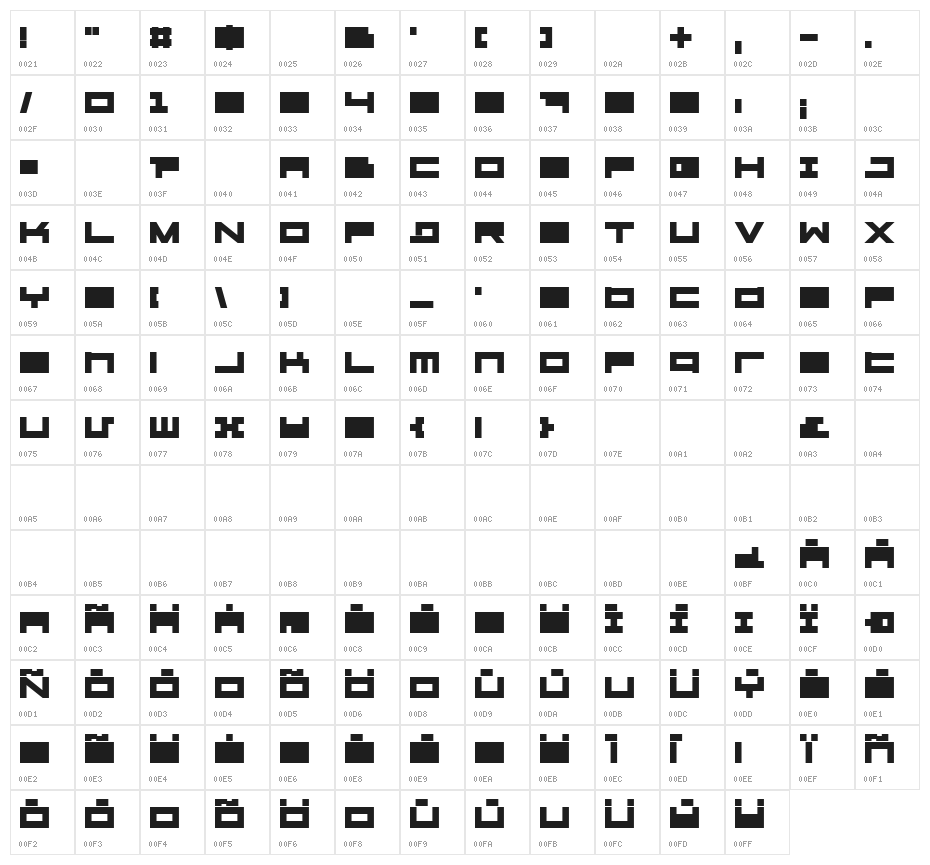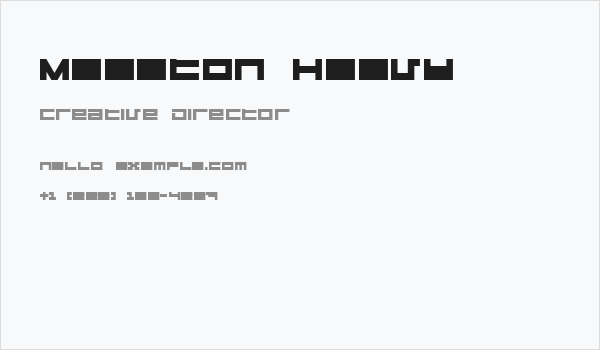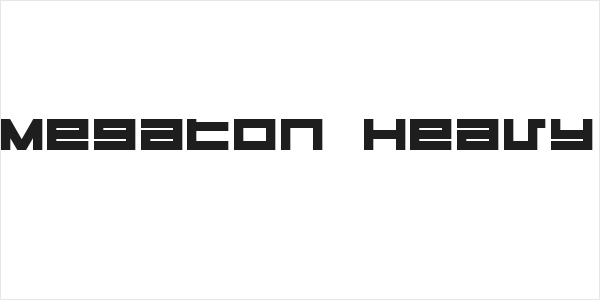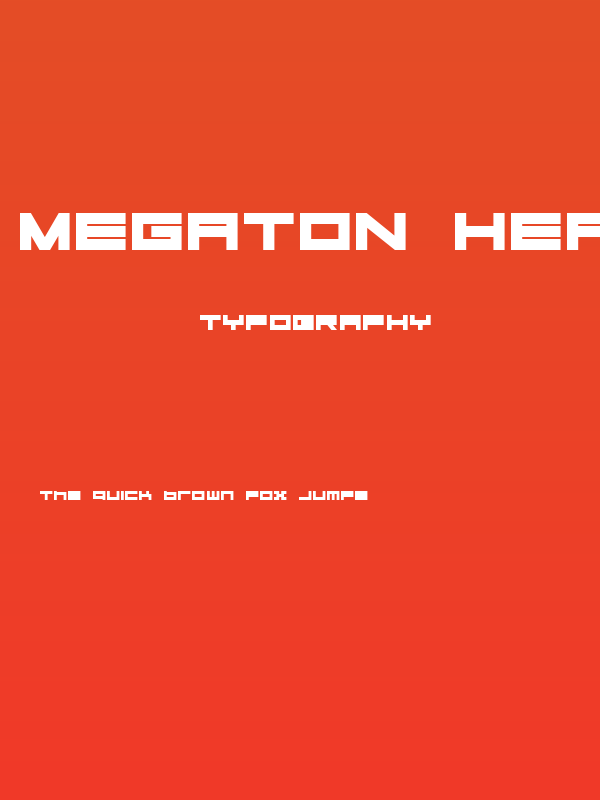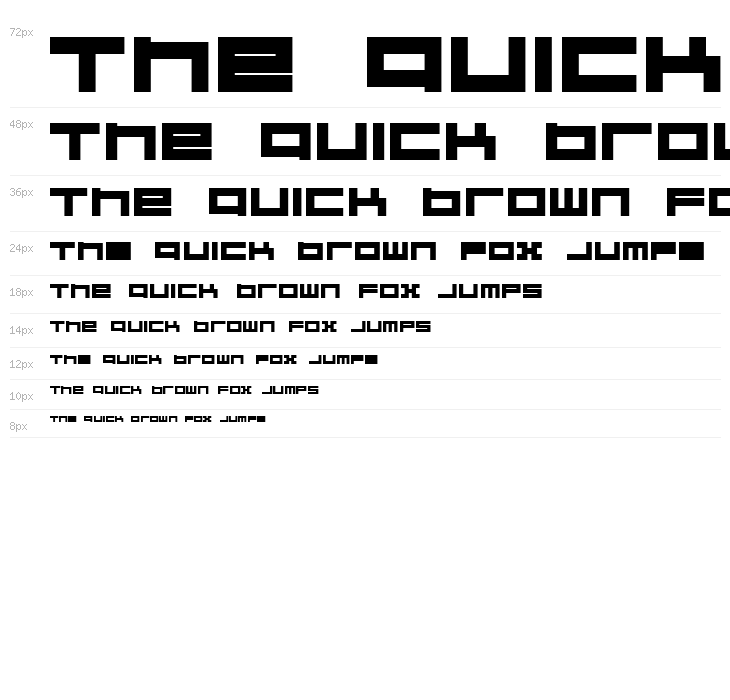
Megaton Heavy Font
Megaton Heavy Description
This font features a bold, geometric design with a distinctly futuristic and industrial feel. The characters are constructed with thick, block-like strokes that create a strong visual impact. Each letter and number is crafted with sharp angles and straight lines, giving the font a mechanical and robust appearance. The uppercase and lowercase letters maintain a consistent style, ensuring uniformity across the typeface. The numerals and special characters follow the same design principles, enhancing the font's cohesive look. This font is ideal for projects that require a modern, edgy aesthetic.
| Proposed Projects | Ideal for technology branding, video game titles, posters, and sci-fi themed designs. |